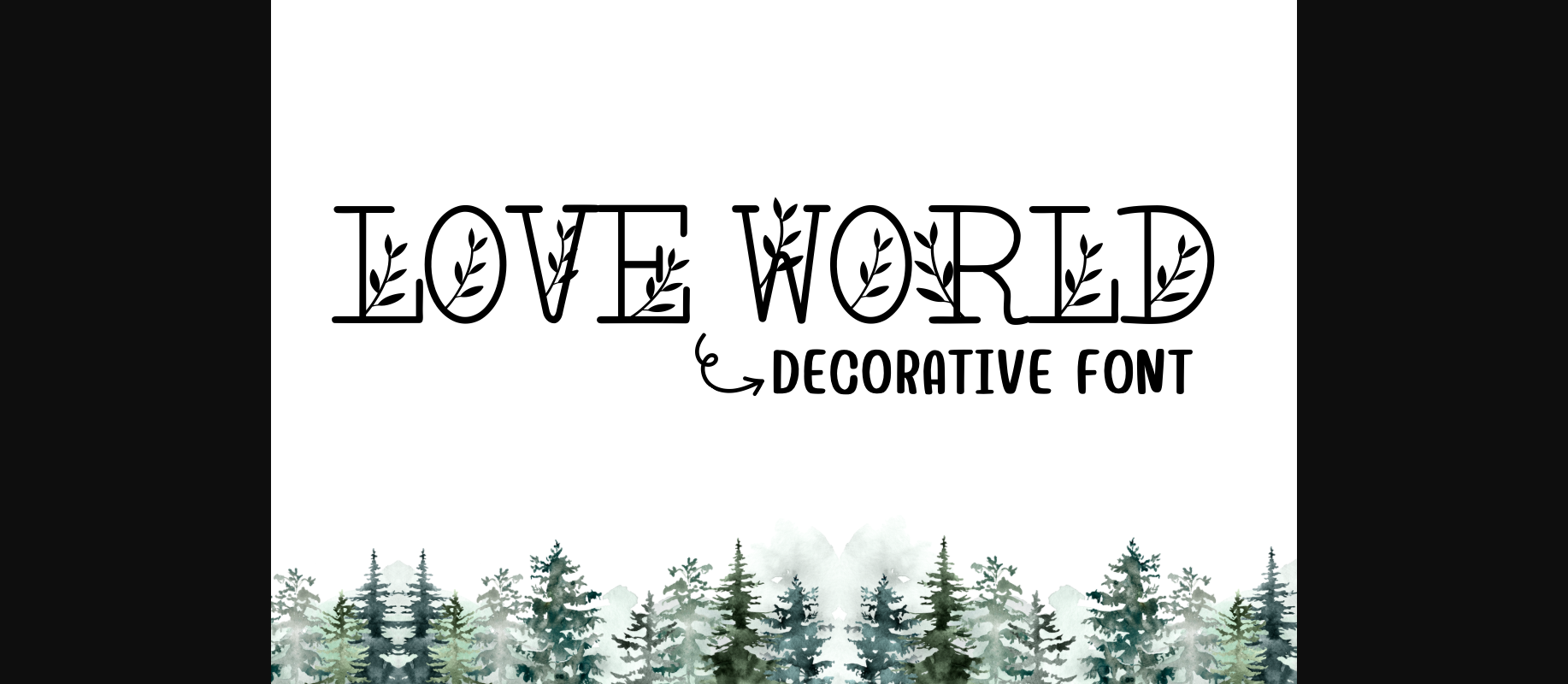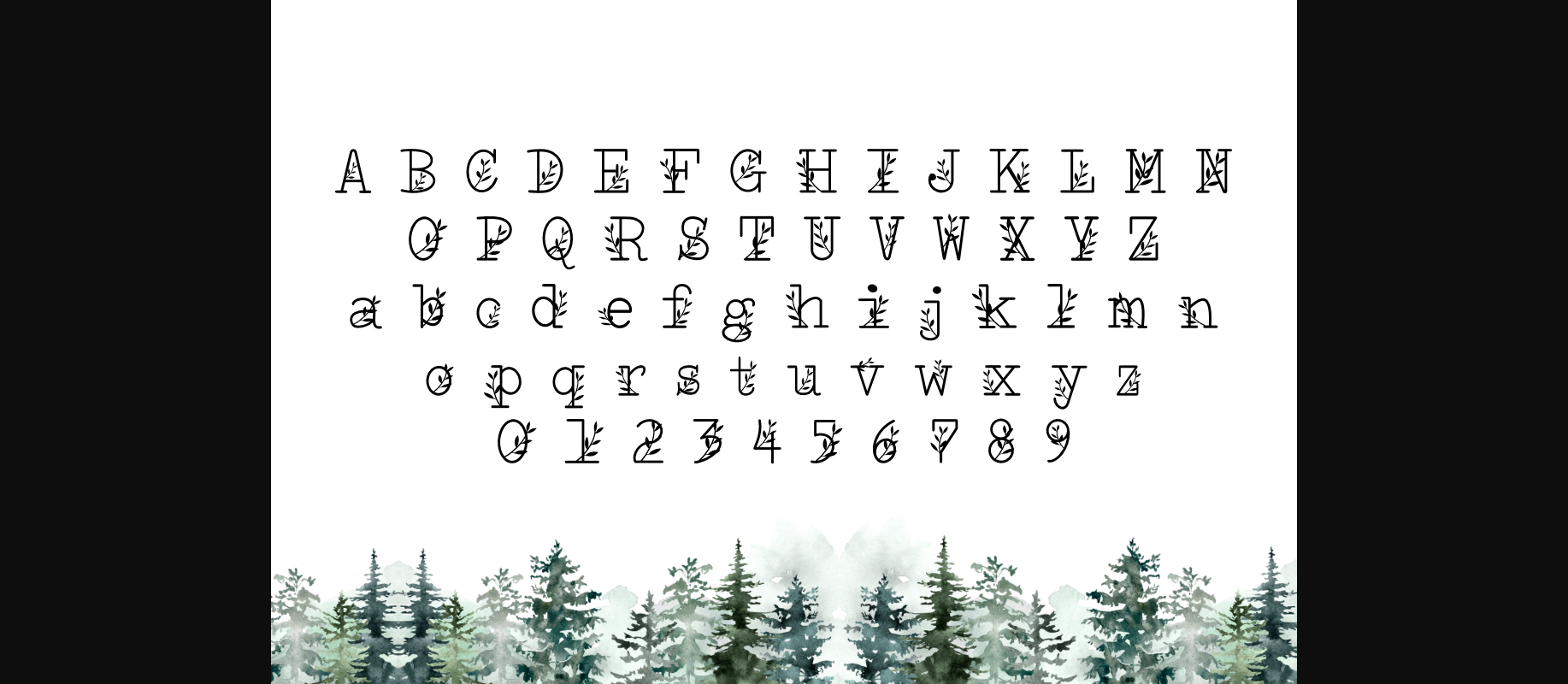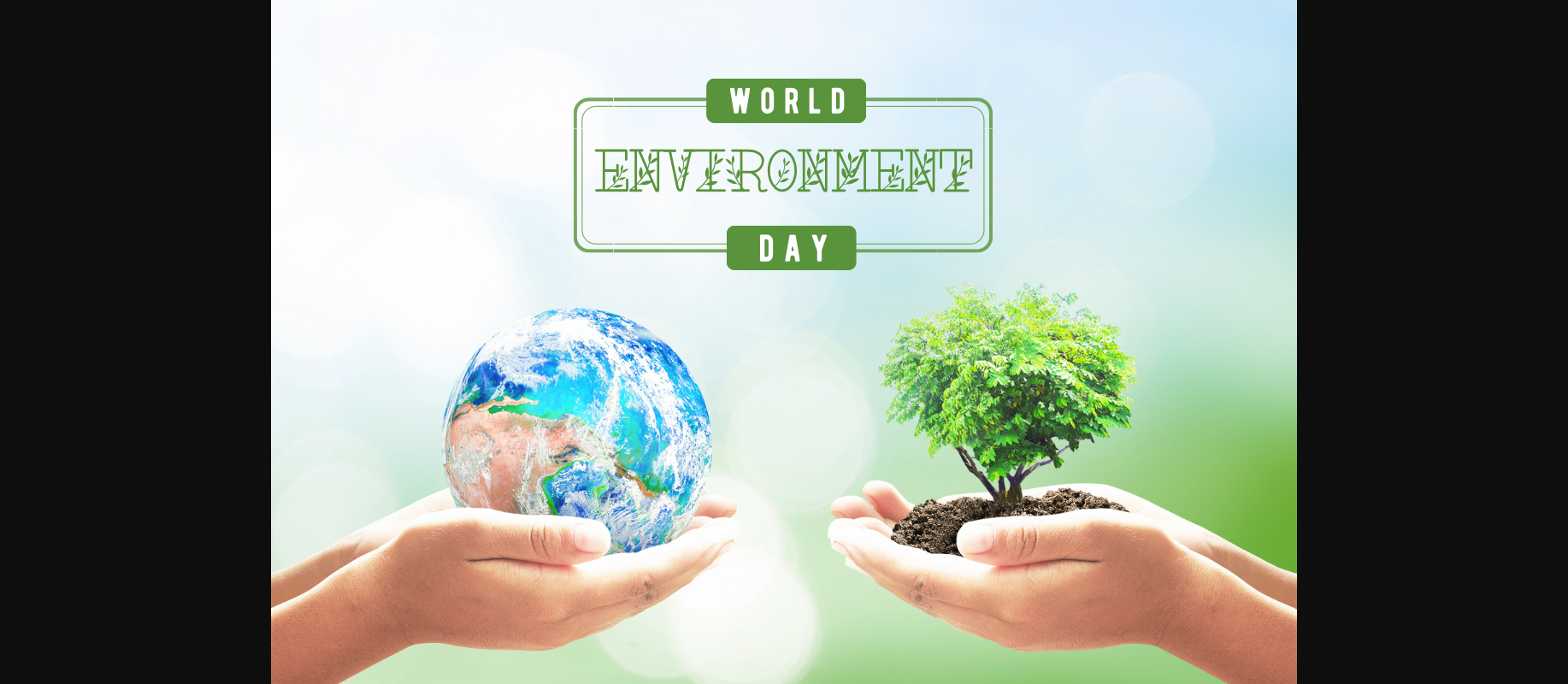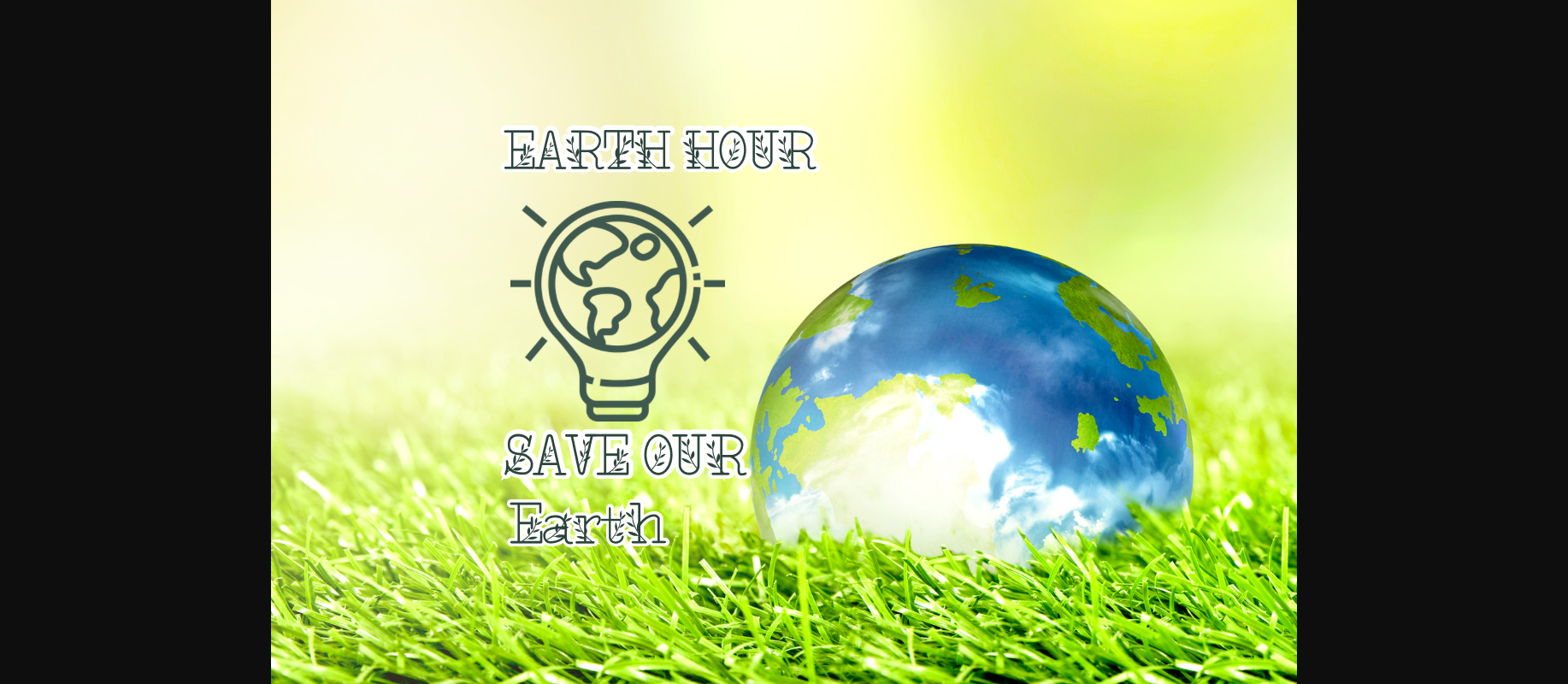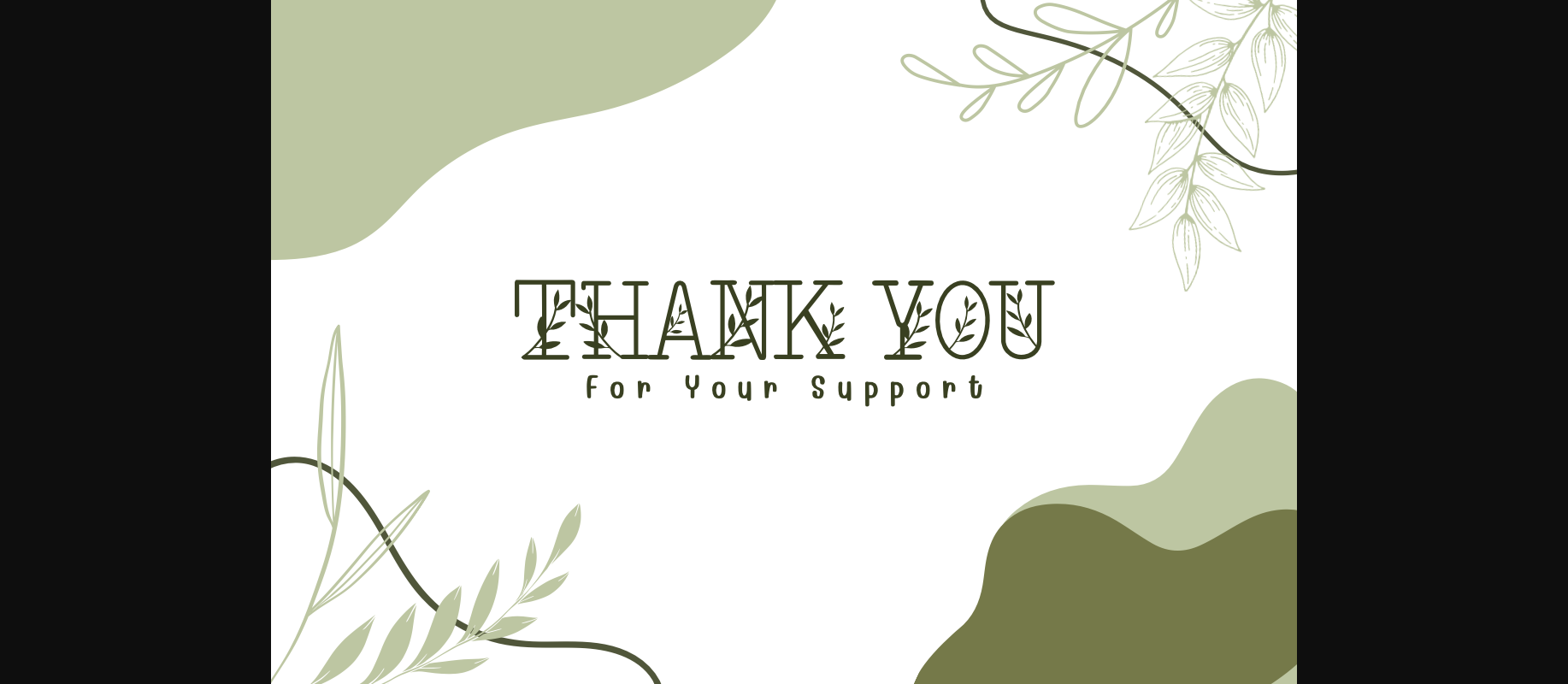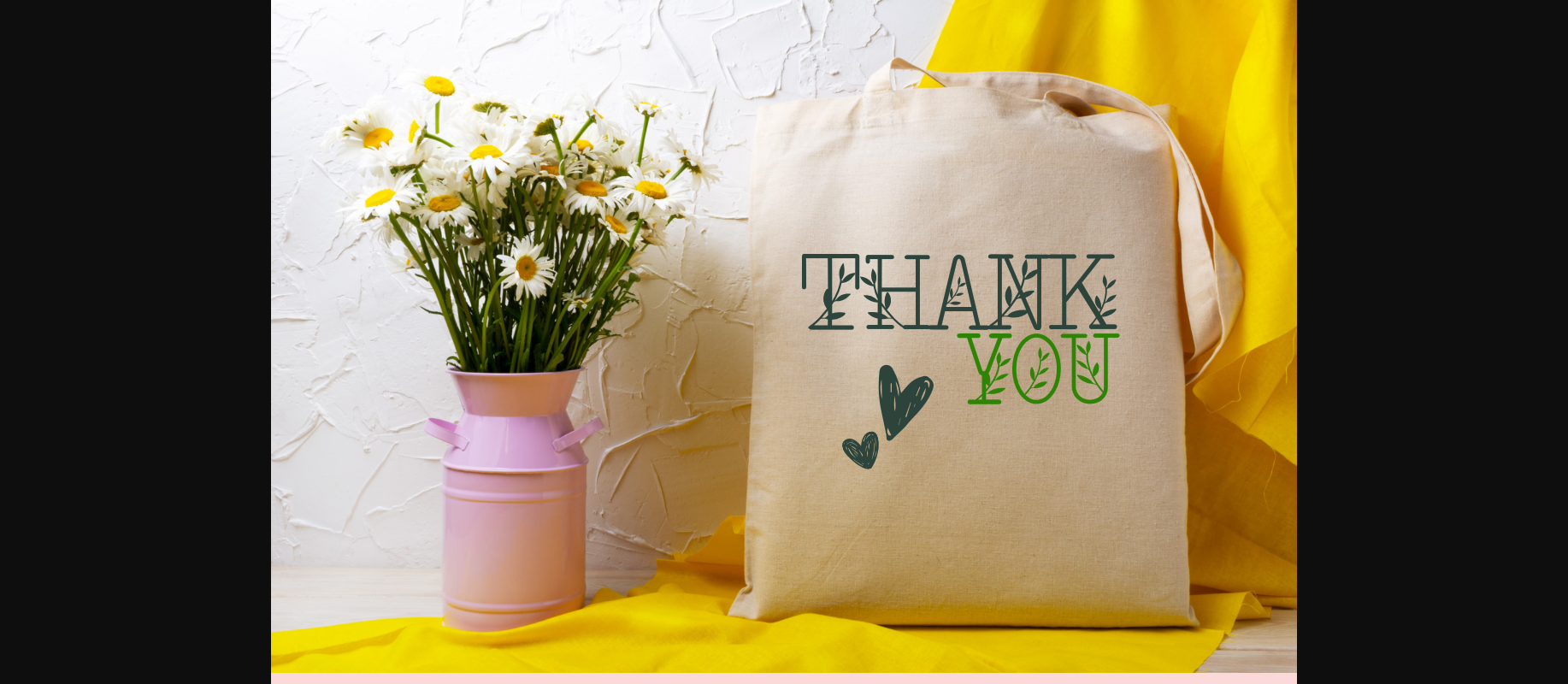
Love World Font
About Love World Font
Love World is a delightful handwritten decorative font that adds a touch of charm to your projects. Its unique feature includes vines gracefully rising from the letters, giving your text a whimsical and organic feel. Perfect for expressing love and creativity, this font brings a playful elegance to your designs. Whether crafting invitations, love notes, or any project that deserves a sweet and decorative touch, Love World is your go-to choice for a warm and inviting vibe.